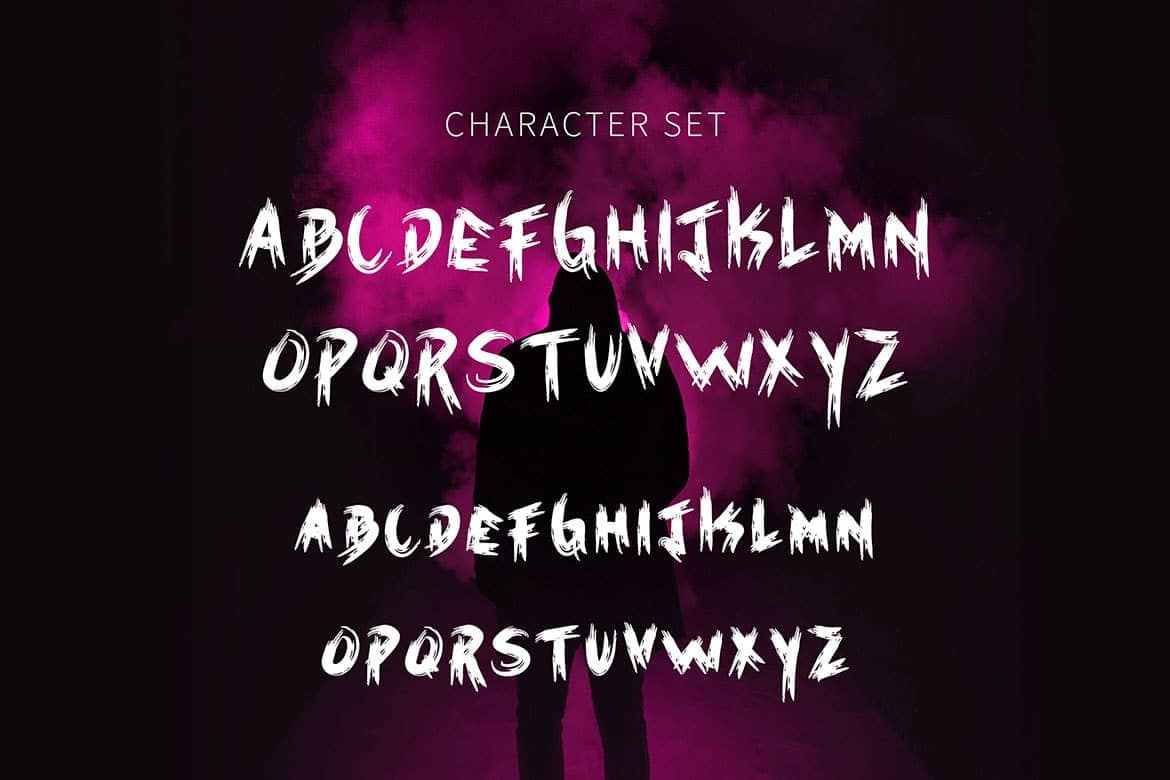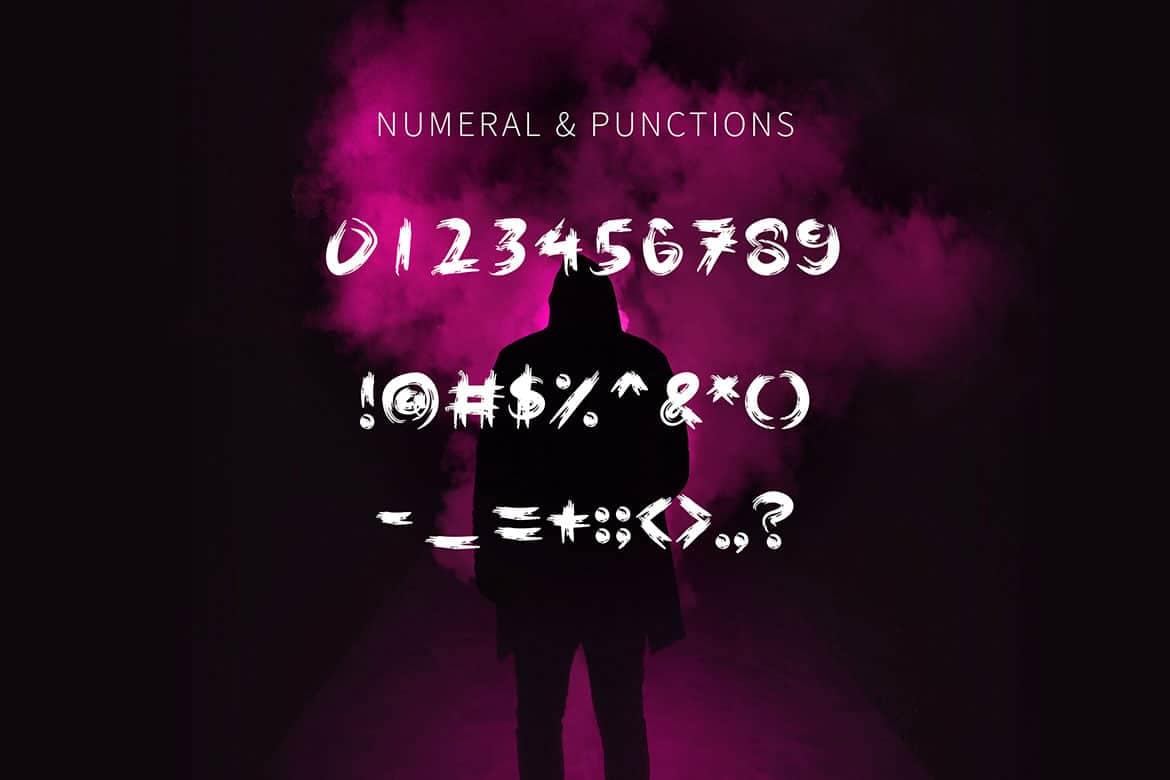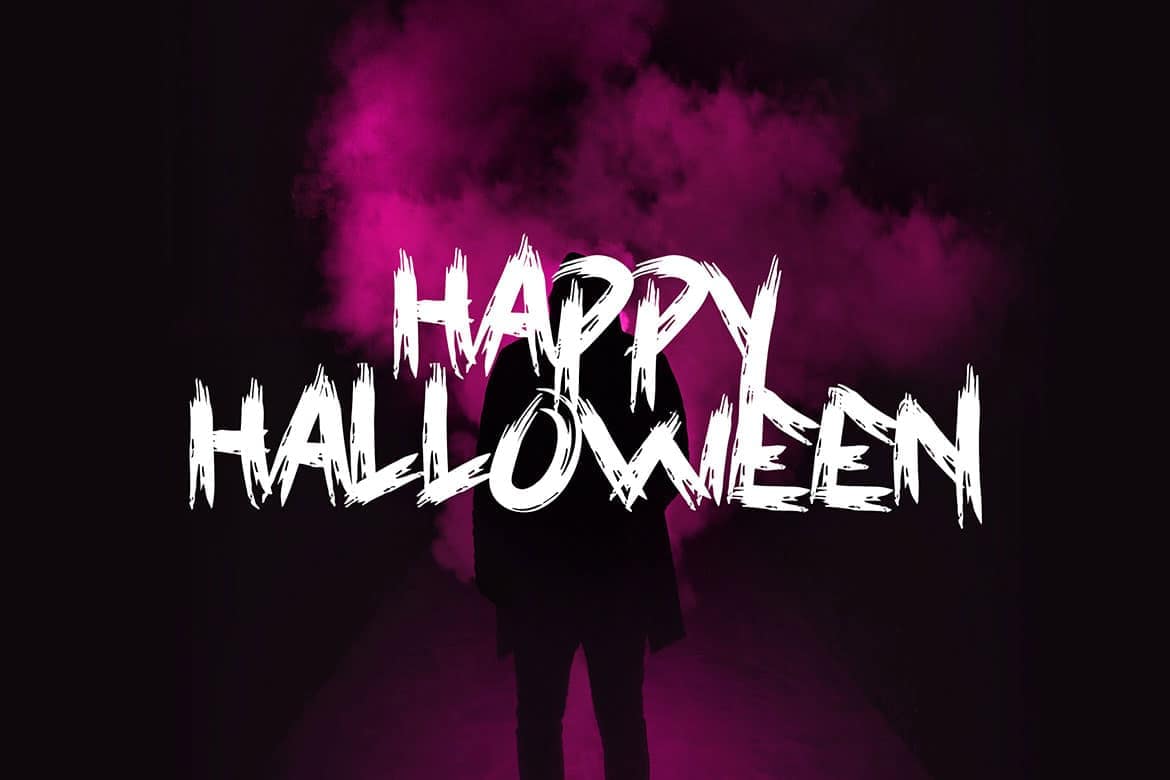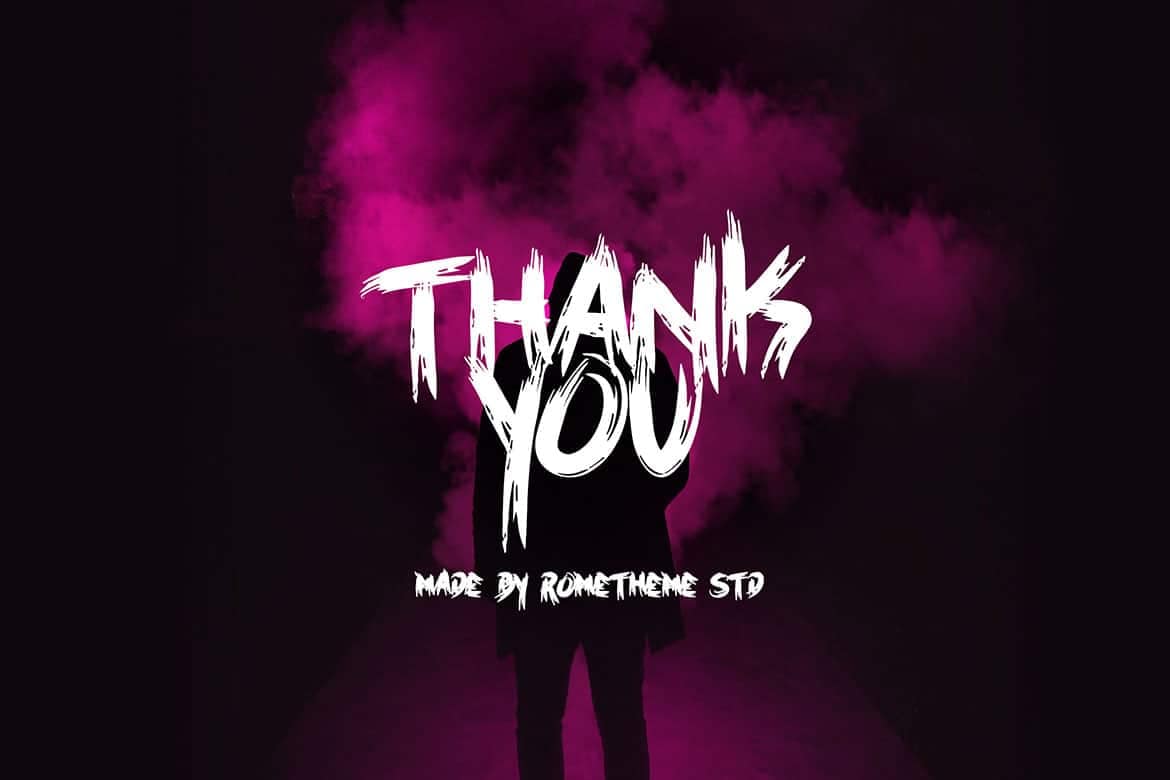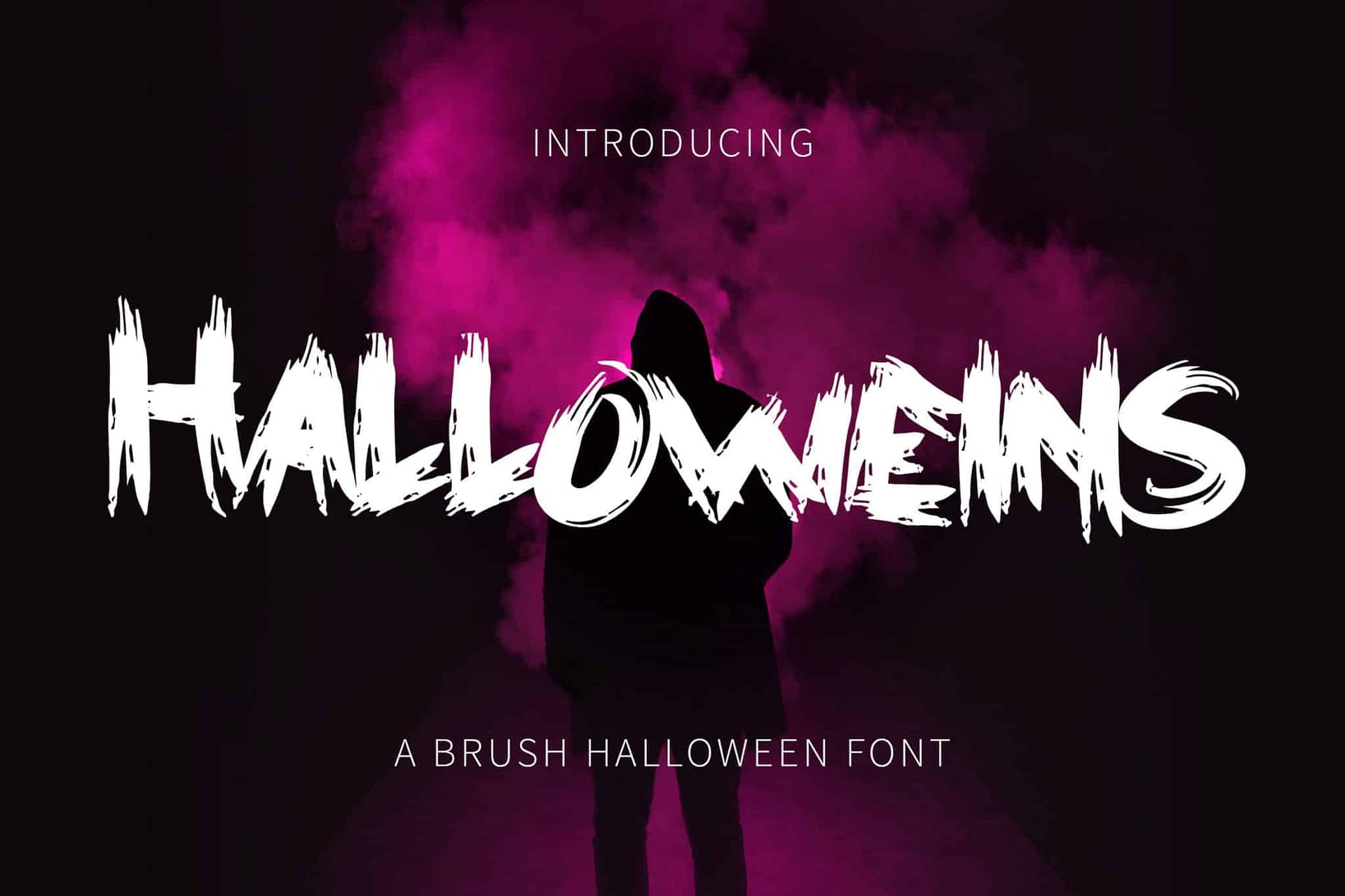
Halloweins is a Spooky brush font, this font looks spooky, horror, catchy and easy to use. It’s a great font for fashion, apparel projects, signature, album cover, logo, branding, magazine, social media, & advertisements, but also works great for other projects.
• Basic Latin A-Z and a-z
• Numbers
• Punctions
Halloweins – Brush Font